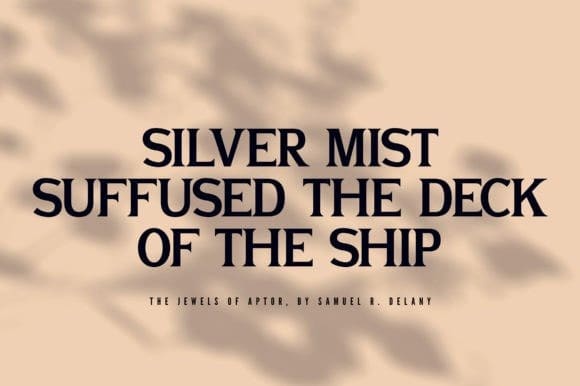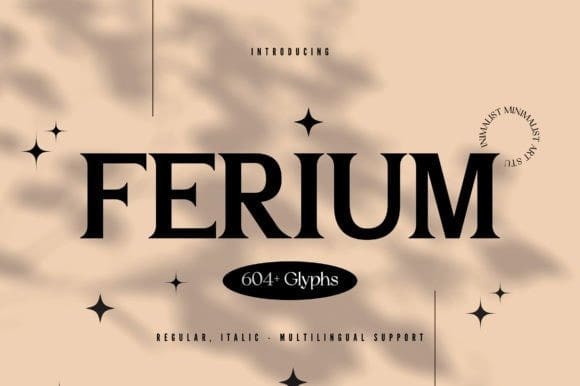
Ferium Font
Ferium Font – This stunning font has been designed with the latest trends in mind, making it the ideal choice for any modern brand that wants to stand out.
The first thing you’ll notice is its clean and simple lines. This font is designed to be both classic and modern, giving your brand a timeless look that will never go out of style. The subtle serifs add just the right amount of flair, without overpowering the design.
This versatility makes it the perfect choice for a variety of uses, including packaging design, cosmetics, posters, fashion products, perfume, branding, and more. Whether you’re designing a high-end perfume bottle or a minimalist poster for your fashion line, our font will elevate your design to the next level.